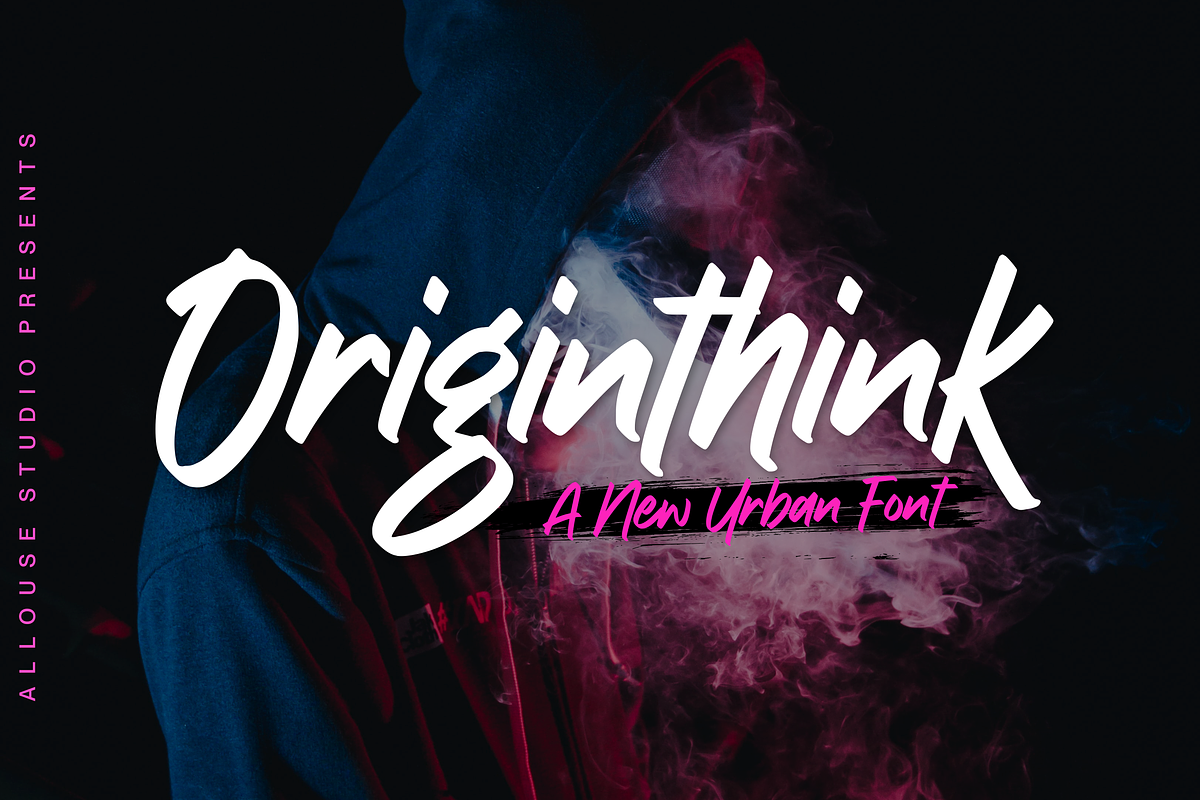
The Originthink An Urban Style Font Free Download is a bold and contemporary font that brings an edgy, urban feel to your designs. With its sharp lines and modern structure, this font is perfect for street art, logos, posters, branding, and any project that needs a strong, urban aesthetic. Its unique style adds a dynamic and artistic touch, making it ideal for designs with a youthful, creative vibe. Please note, for commercial use, a license purchase is required. However, you can easily download the Originthink An Urban Style Font Free Download for free for personal use and explore its versatility. Whether you're designing for a music event, a fashion brand, or any urban-inspired project, this font will help your work stand out with its bold and stylish look. Download the Originthink An Urban Style Font Free Download today and give your designs a contemporary, street-smart edge.